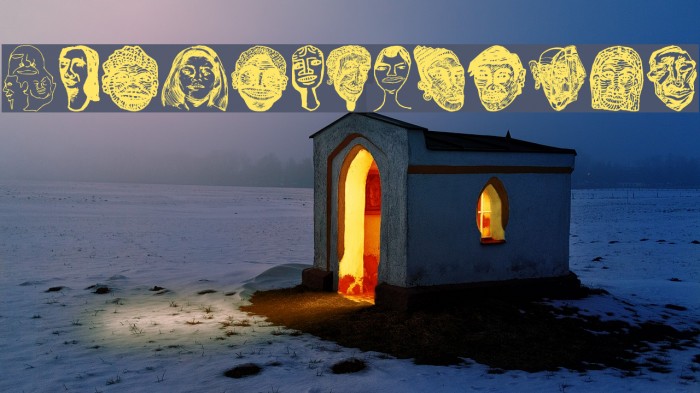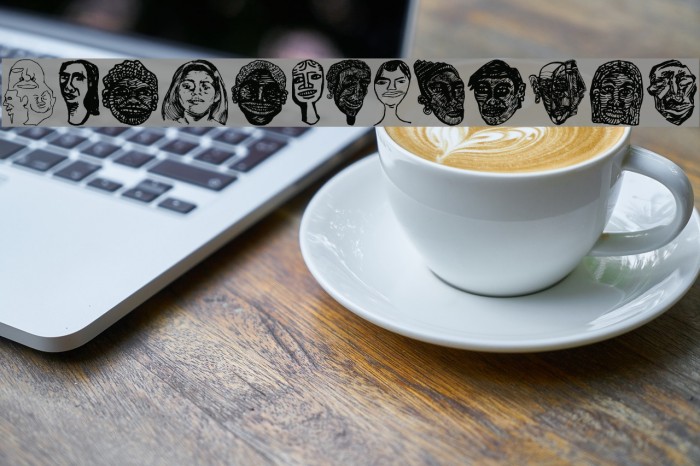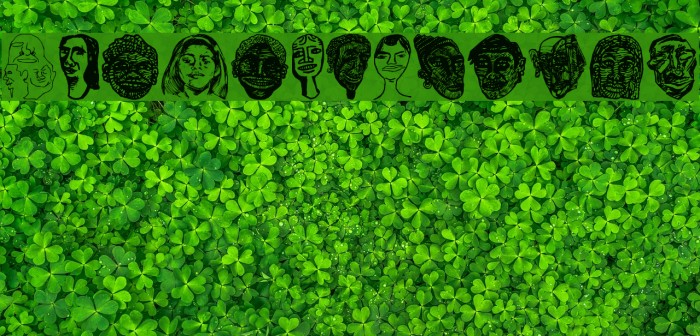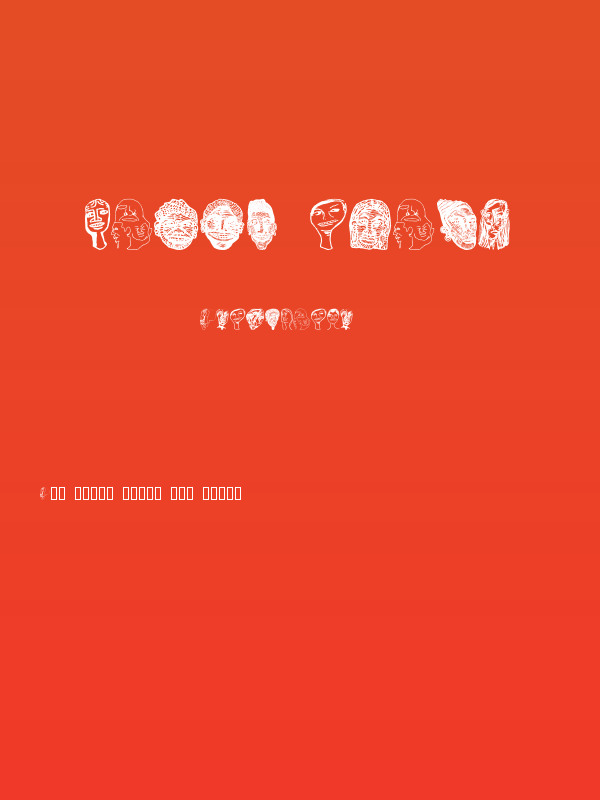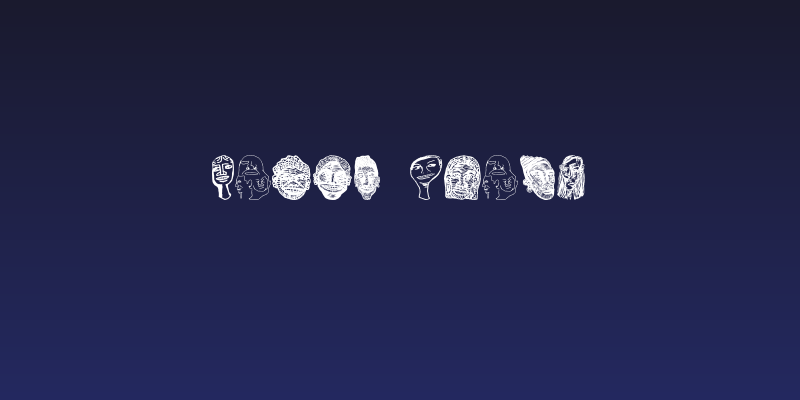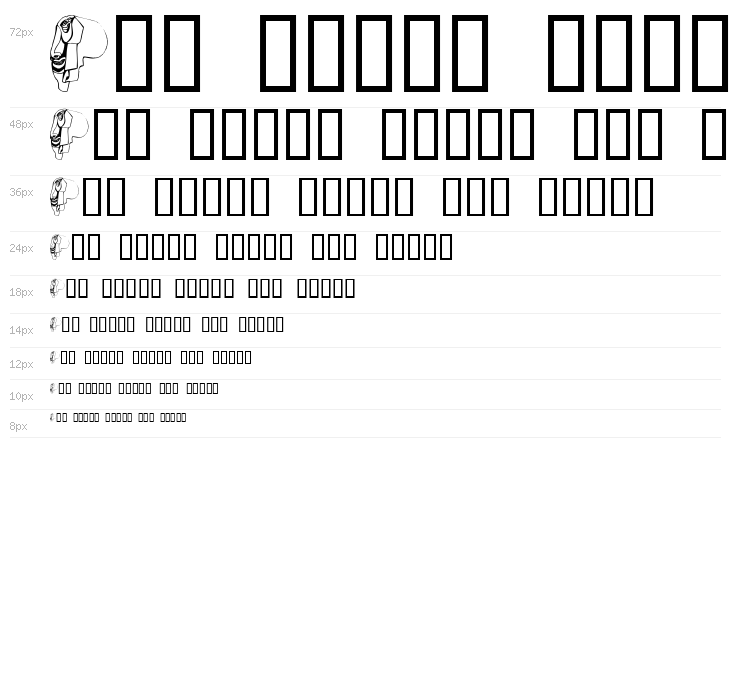
Faces Plain Font
Faces Plain Description
A highly decorative and artistic font where each character is represented by a unique, hand-drawn face illustration. The style is expressive, with varied line thickness and abstract, sketch-like qualities, giving each glyph a distinct personality.
| Overall Style | Decorative, Artistic, Abstract |
| Use Case | Logos, Headlines, Posters, Artistic projects |
| Proposed Projects | Art posters, album covers, experimental branding, editorial illustrations, creative event invitations. |